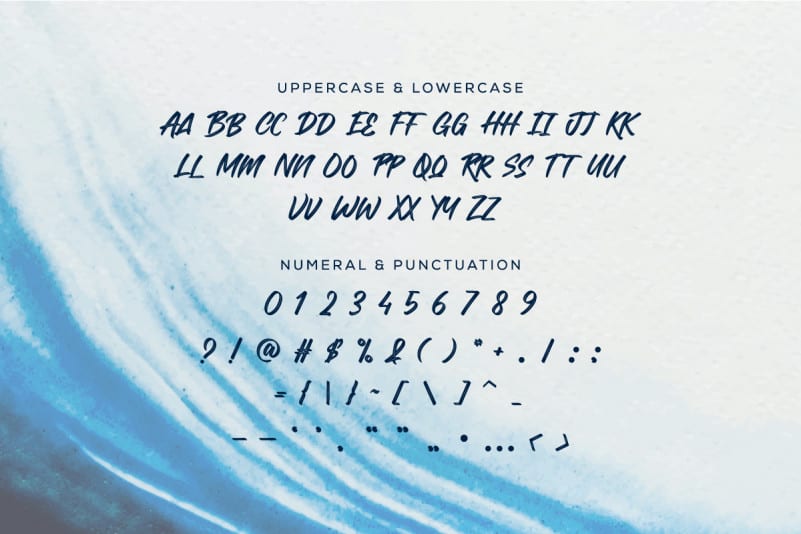
Bluesticks Brush Font
Bluesticks Brush Font is a original textured brush calligraphy font. The style of this font are stylish, classic, elegant, luxury and strong brush font.